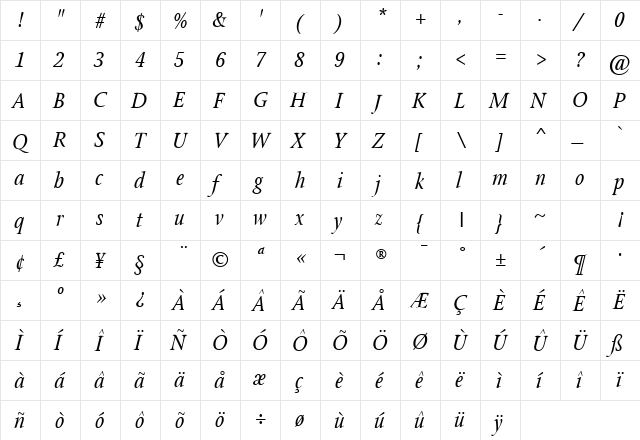
StonePrint Italic
Design Context for StonePrint Typeface
StonePrint takes a measured approach to typography — its balanced proportions and neutral character make it a reliable workhorse for both digital and print work. The dynamic lean of this cut emphasises speed and emphasis in any layout.
Pro Tip: Try StonePrint for annotation and caption copy alongside an upright companion — the contrast in angle creates a dynamic but ordered typographic system.